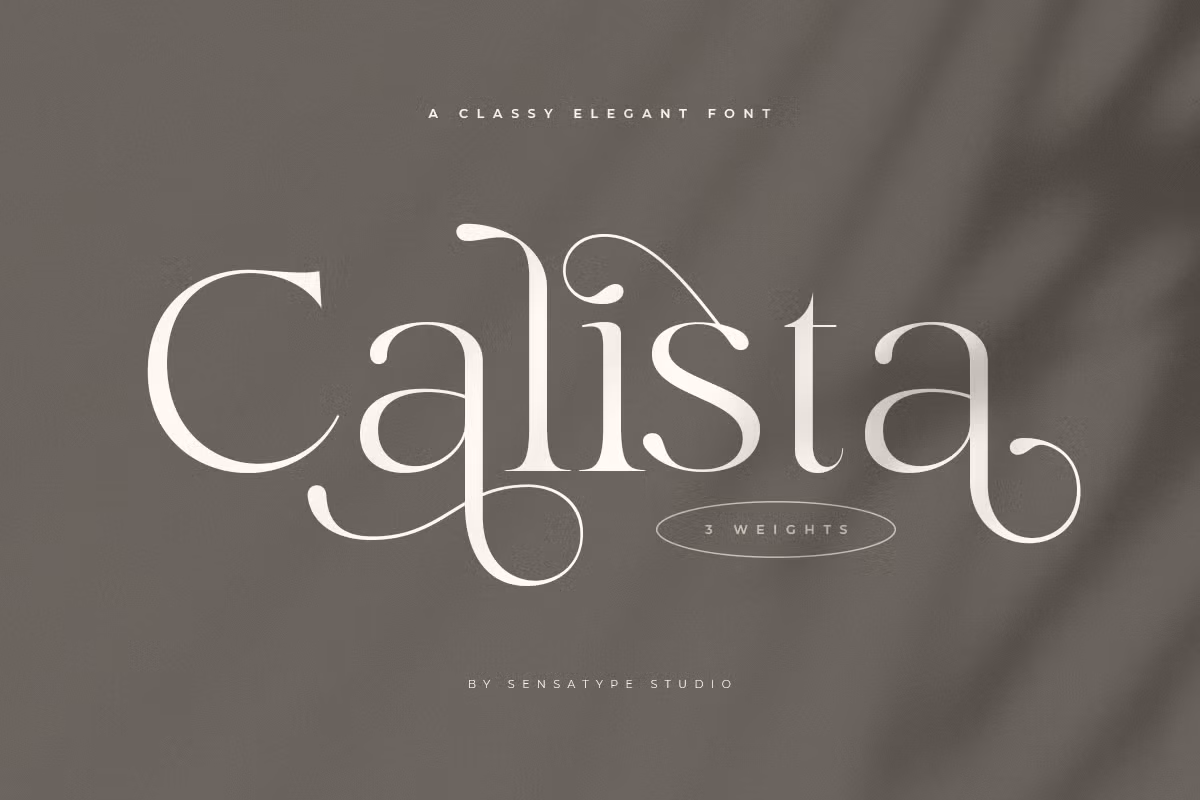
Calista - Classy Elegant Font Free Download
Calista – Classy Elegant Font Free Download is a sophisticated serif typeface designed to exude elegance and grace. Perfect for luxury branding, wedding invitations, fashion editorials, and upscale packaging, this font adds a refined and timeless feel to any design project.
With its graceful curves, stylish contrasts, and polished appearance, Calista – Classy Elegant Font Free Download helps you create high-end visuals with ease. Whether you're designing for a premium beauty brand or a formal event, Calista delivers the elegance and versatility you need. Try it in your next concept and experience how effortlessly it elevates your typography—then upgrade to a commercial license when you're ready to go live.